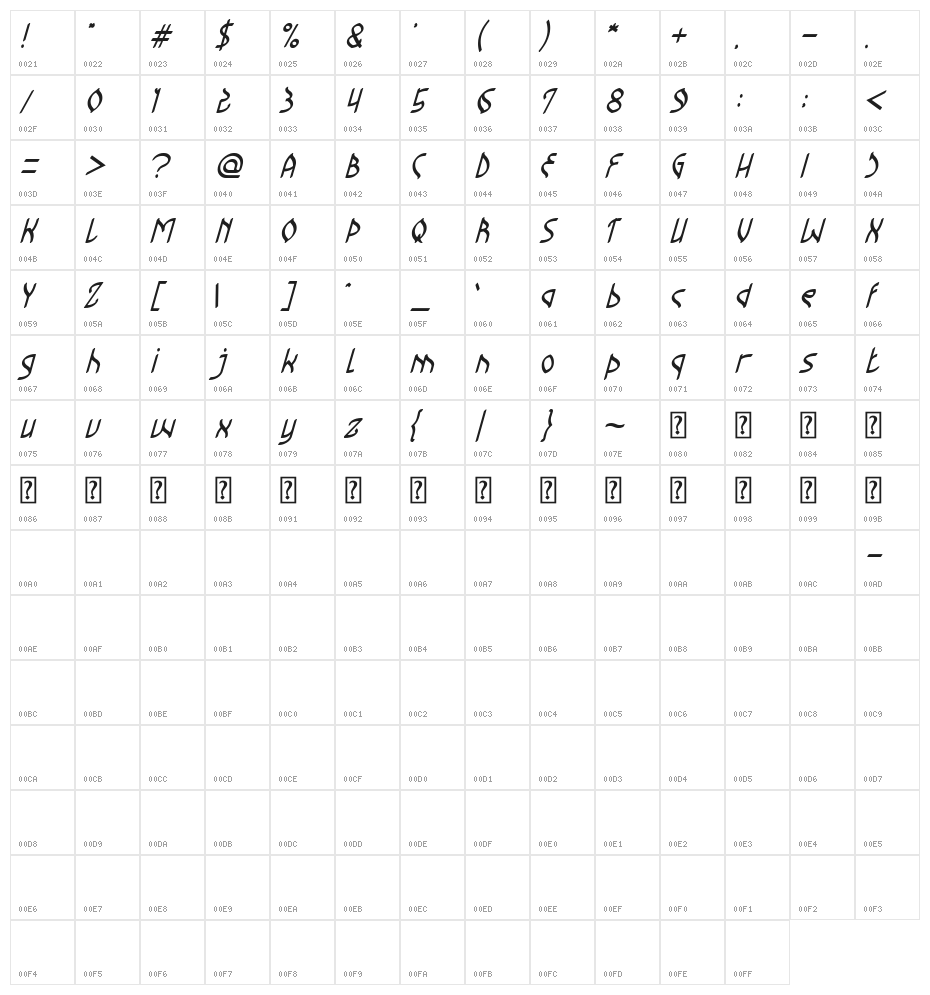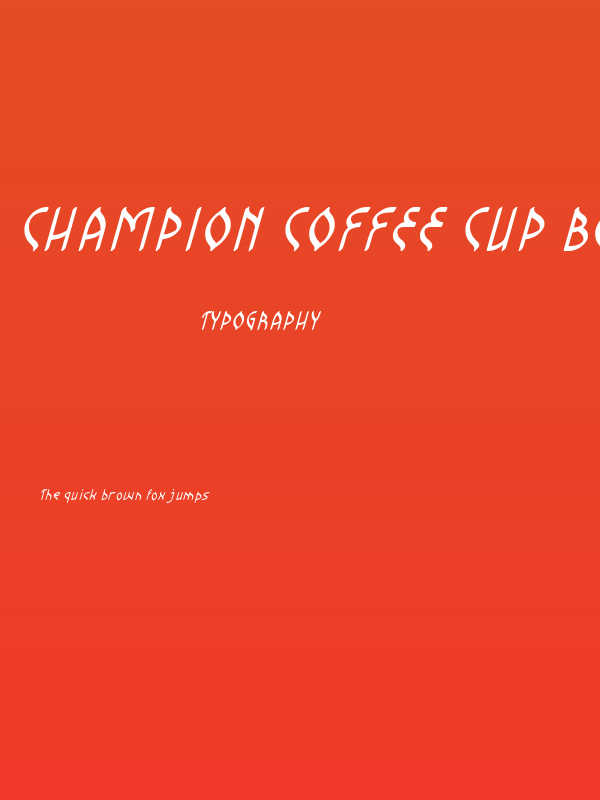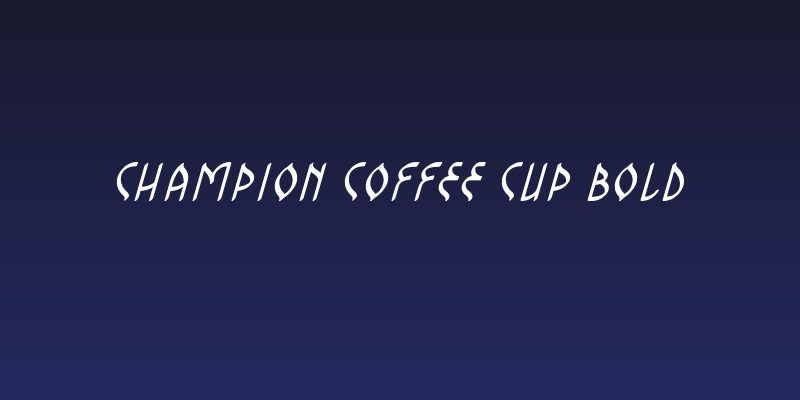
Champion Coffee Cup Bold Font
Champion Coffee Cup Bold Description
This font features a dynamic and energetic style with a handwritten appearance. The letters are slightly slanted, giving a sense of motion and fluidity. The strokes are bold and confident, with varying thickness that adds a lively character to the text. The uppercase and lowercase letters maintain a consistent style, while the numerals and special characters integrate seamlessly. This font is perfect for projects that require a personal touch or a creative flair, such as branding, posters, or artistic designs.
| Proposed Projects | Ideal for branding, posters, artistic designs, and creative projects. |